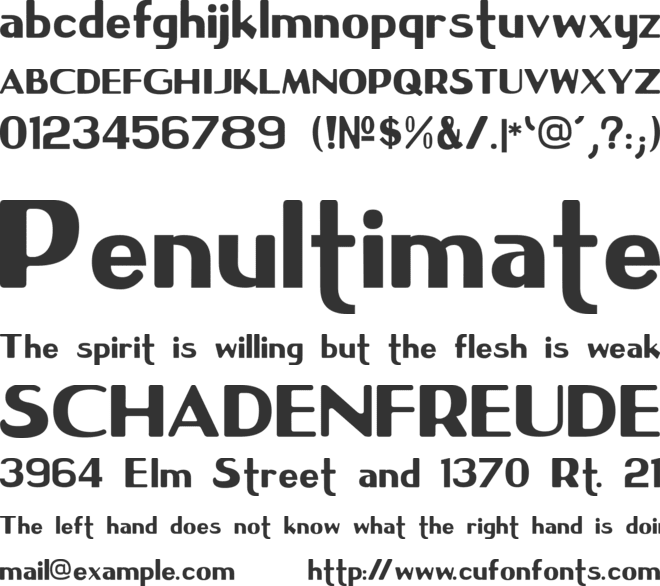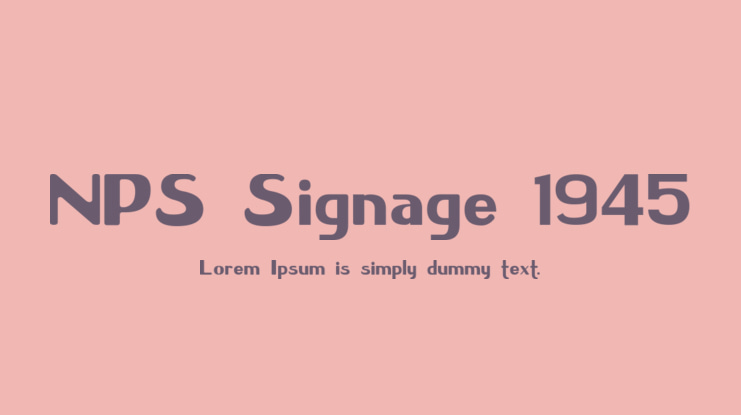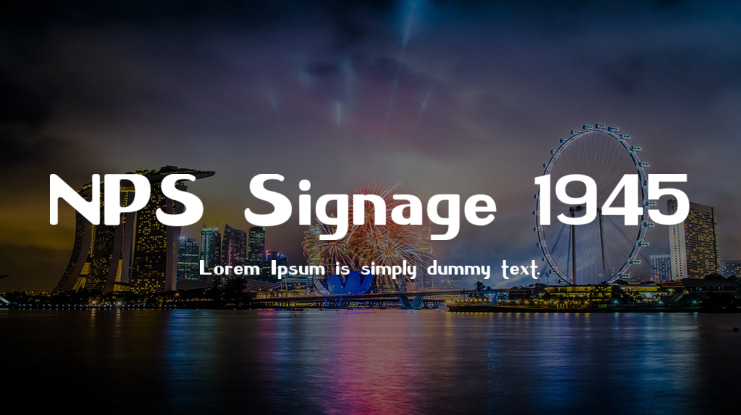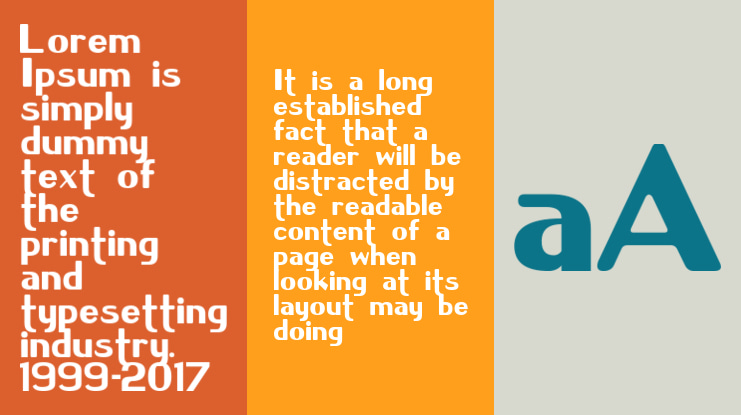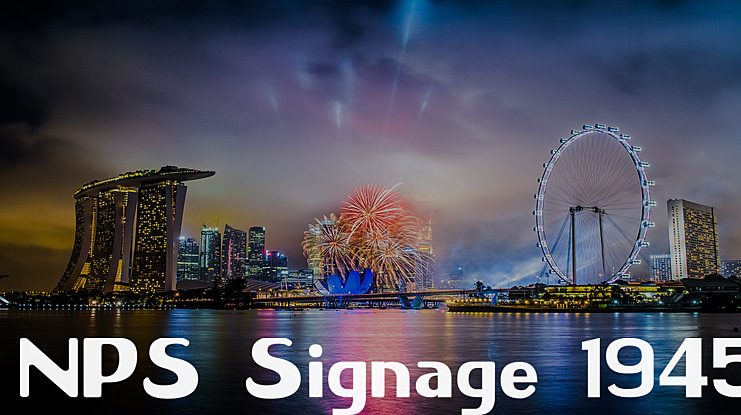
NPS Signage 1945 Font
This font is similar, but not exact replica of an art deco type of font that is used on numerous signs/signage within national parks. Circa 1916 to today.